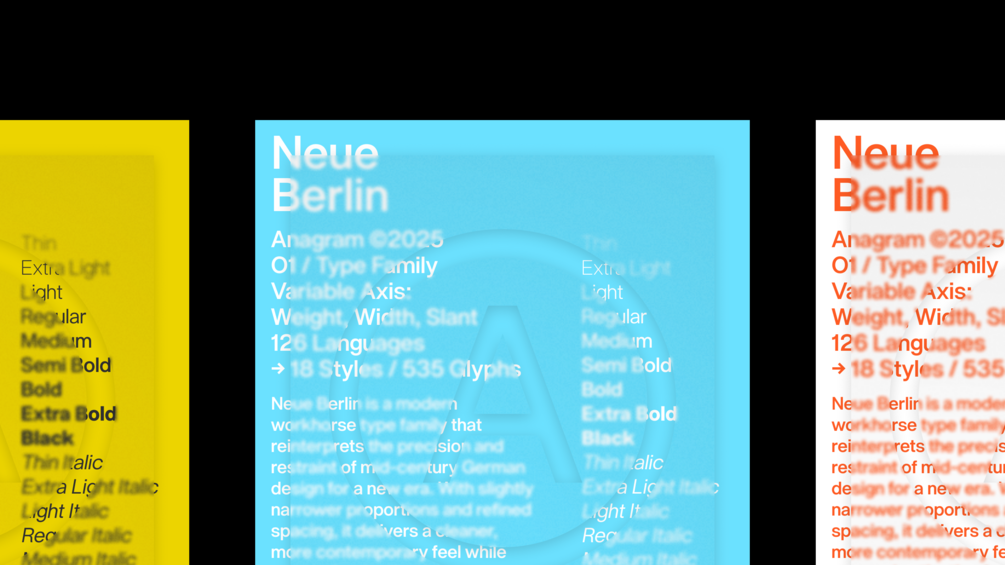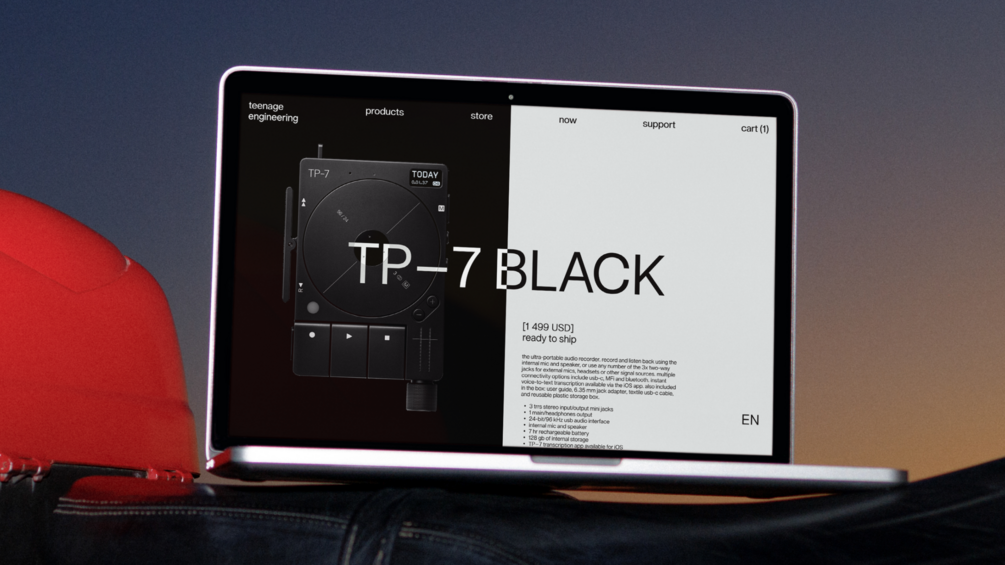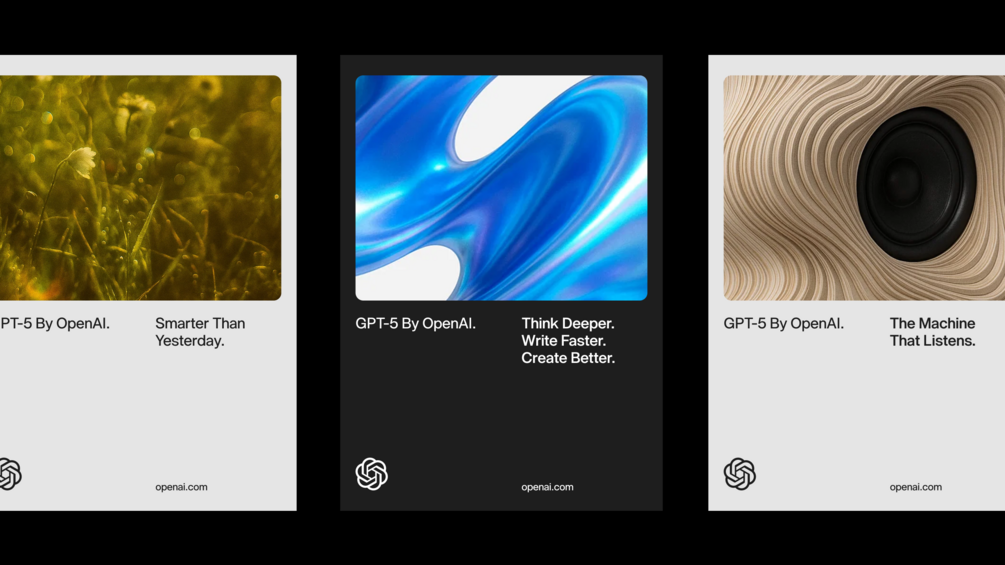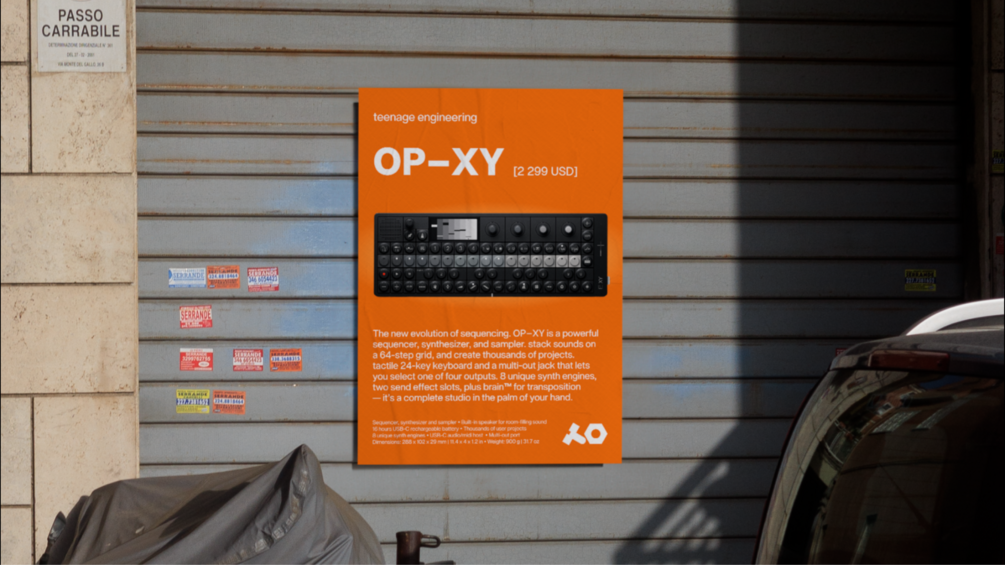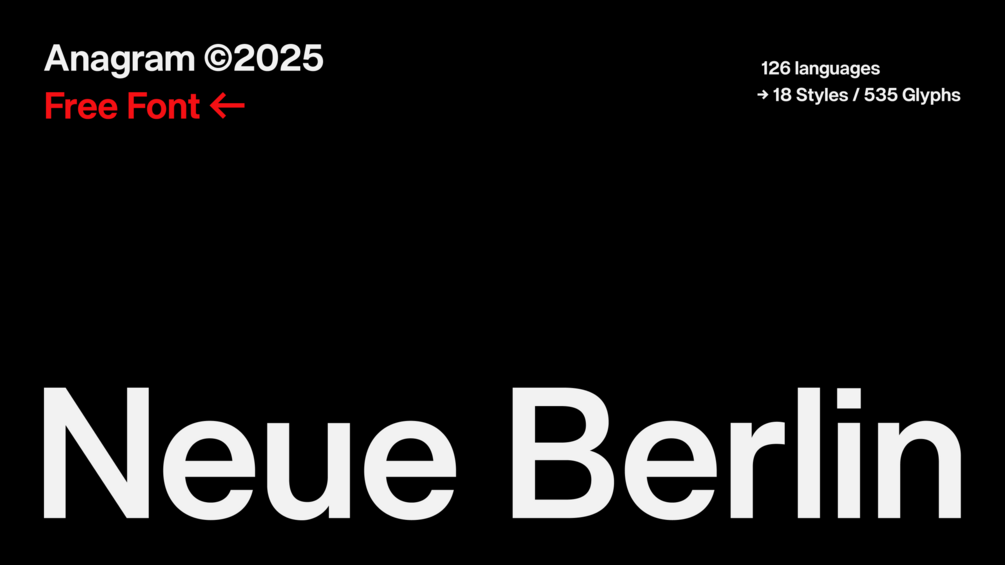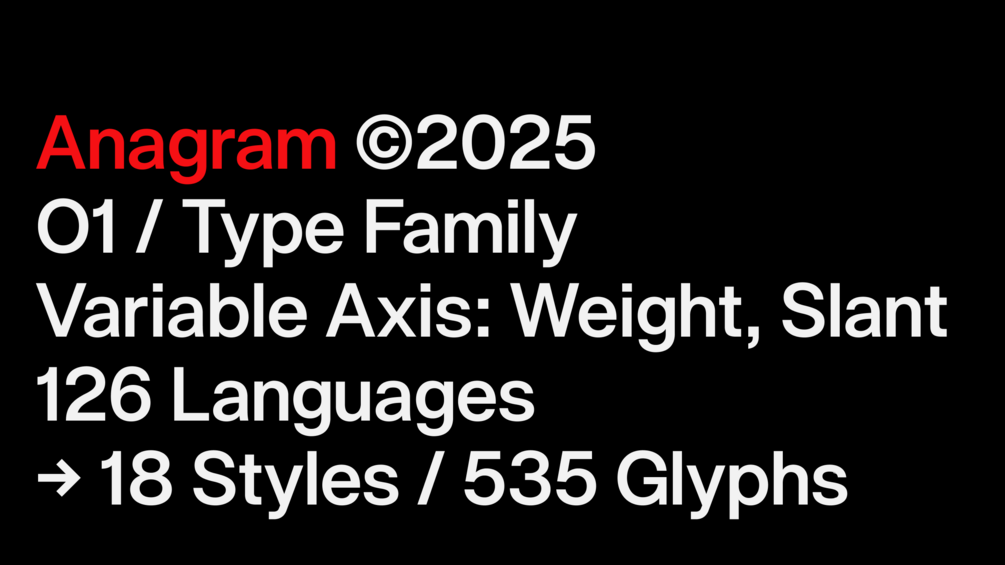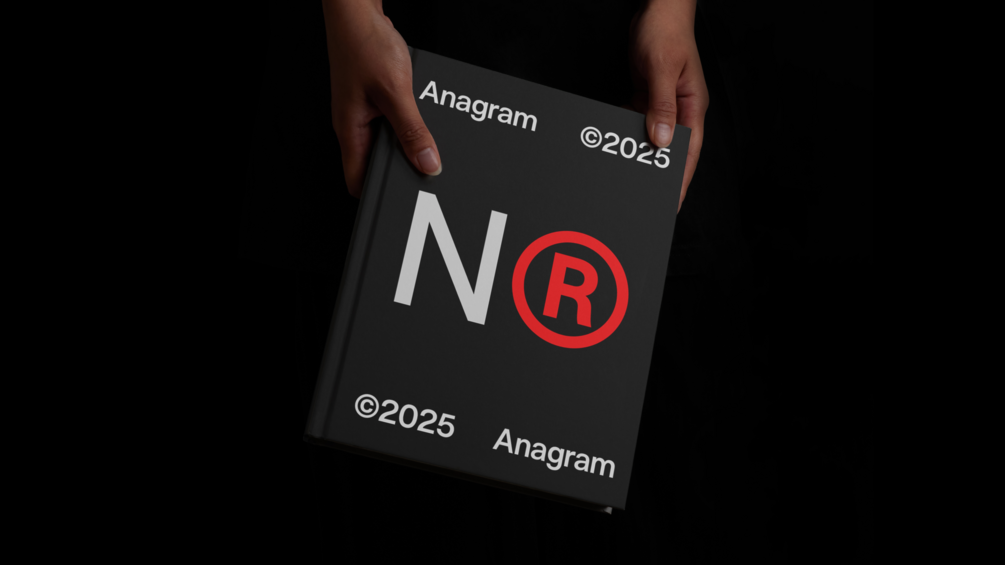
Neue Berlin Typeface
Neue Berlin is a modern workhorse type family that reinterprets the precision and restraint of mid-century German design for a new era. With slightly narrower proportions and refined spacing, it delivers a cleaner, more contemporary feel while preserving the timeless balance of that classic style. Built for aesthetics and legibility at every scale, it performs effortlessly across print, digital, and motion.
Specifications
• 18 Styles (Inc. Italics) + Variable Cut
• 535 Characters
• Supports 126 Languages